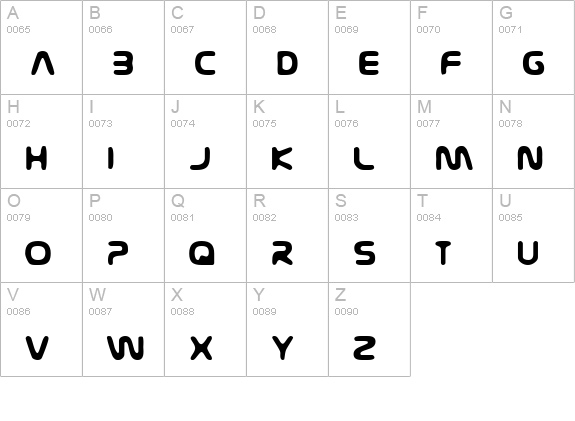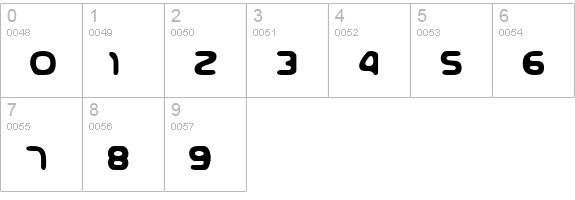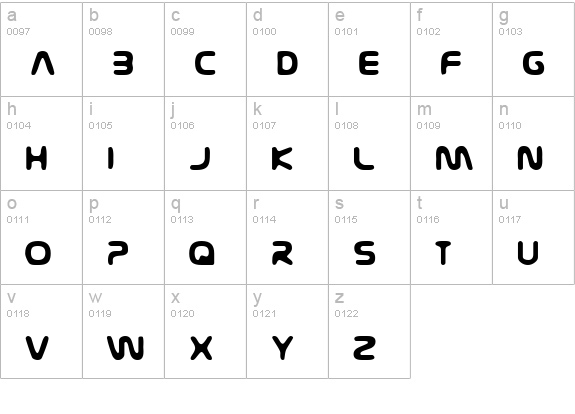
Nasal Font Details
Introducing Nasal font, a sleek and modern typeface designed to make a bold statement in your projects. This versatile font features clean lines and a contemporary look that is perfect for a wide range of design applications. Whether you're creating branding materials, editorial layouts, or digital designs, Nasal font will add a touch of sophistication to your work. Best of all, Nasal font is available for free download at FontsMarket.com. This means you can easily access this stylish font and elevate your design projects without breaking the bank. Don't miss out on the opportunity to add Nasal font to your font collection and start creating stunning visuals today.